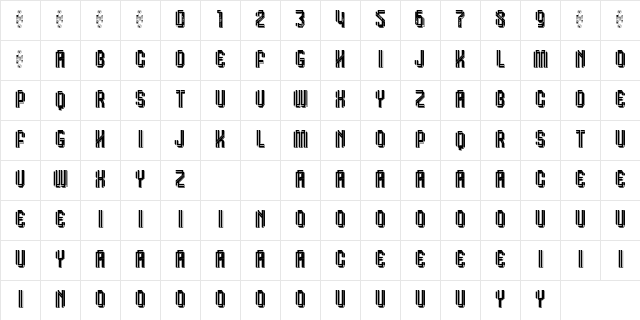
Complete Klops Inline Shdw Personal Regular glyph index. Displaying only characters natively supported by Klops Inline Shdw Personal Regular font.
Klops Inline Shdw Personal is built around its visual character rather than neutral utility - its distinctive forms are designed to make an impression at display sizes.
Font Pairing: Pair with a clean neutral sans-serif for body copy to let Klops Inline Shdw Personal's character lead without overwhelming the composition.
Pro Tip: Use Klops Inline Shdw Personal exclusively at display sizes - it was designed to be seen, not read at length. Let a neutral companion handle body copy.